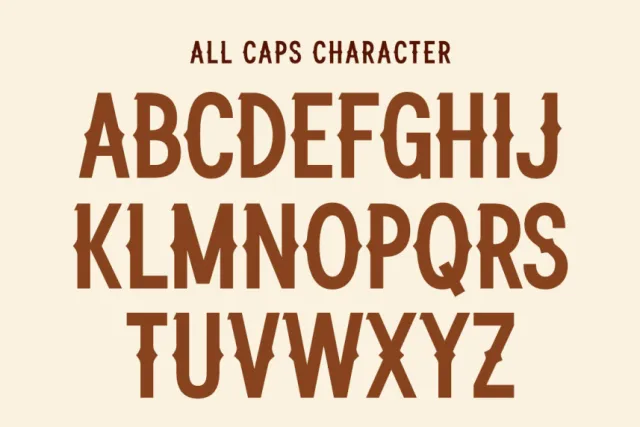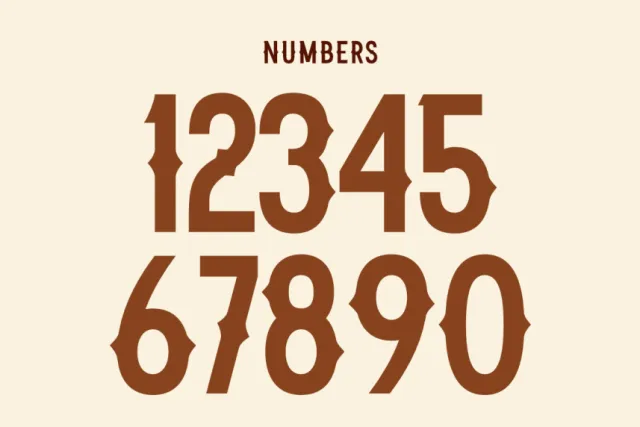
Western Display Font brings a bold and adventurous look to any design project. It is inspired by classic western lettering, offering a rugged charm that instantly stands out.
The strong letterforms and decorative details make it a perfect choice for projects that need a vintage, wild west vibe with a modern twist.
This font is ideal for posters, logos, headlines, signage, and branding where a bold and eye-catching style is required. Its clean yet decorative design ensures that every word makes a strong visual statement.
Whether you are working on event graphics, apparel designs, or creative packaging, this font adds a unique character to your work.
Whether you are designing for entertainment, product branding, or themed creative projects, Western Display Font can bring a touch of nostalgia and bold style. Download it and start enhancing your designs with a font that combines historical influence with modern usability.
Type Display
Suitable For Logos, Posters, Signage, Branding, Event Graphics
Font Style Bold, Vintage, Decorative
Designers often look for fonts that not only look great but also perform well across different media. This typeface offers versatility, working beautifully in both digital and print projects. It can be used in large headings to grab attention or in smaller decorative text to complement your main design elements.